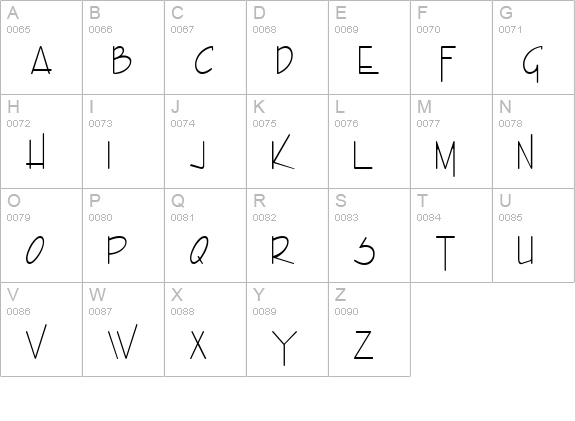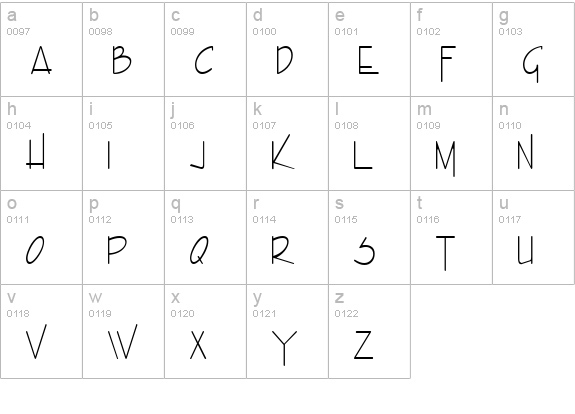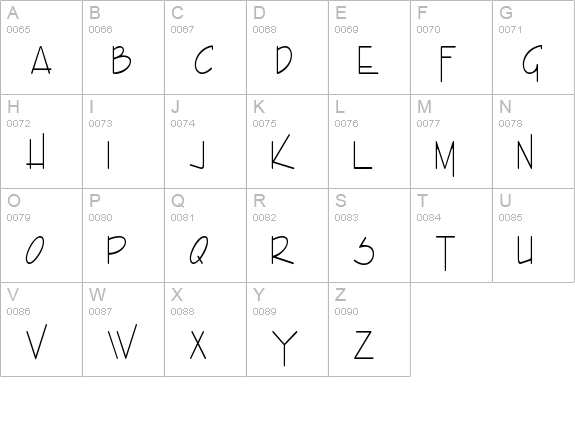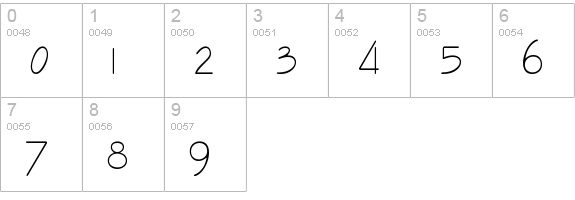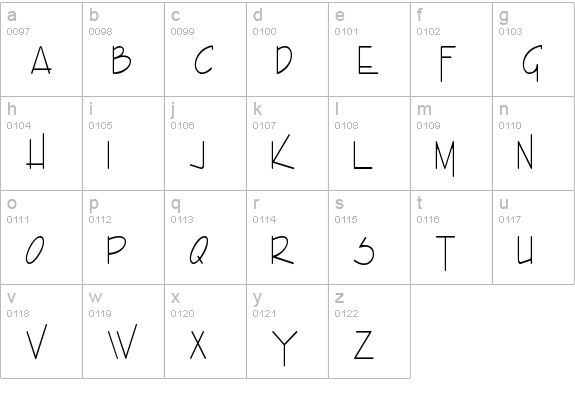
Enview Condensed Light Normal is a refined, elegant, condensed-width variant in the Enview typeface family \xE2\x80\x94 well suited to elegant body text, refined sub-headings, and luxury branding.
Enview Condensed Light Normal is a sleek and elegant font that exudes sophistication and modernity. With its clean lines and minimalist design, this typeface is perfect for adding a touch of refinement to any project. The condensed style gives it a unique and contemporary look, making it ideal for use in various design applications. This font is versatile and can be used for a wide range of projects, from branding and advertising to editorial design and web content. Its light weight adds a sense of airiness and delicacy to any text, while maintaining excellent readability. Enview Condensed Light Normal is the perfect choice for creating a sophisticated and polished aesthetic in your designs. Best of all, Enview Condensed Light Normal is available for free download at FontsMarket.com. This means you can effortlessly access and use this high-quality font in your projects without any cost. Don't miss out on the opportunity to enhance your designs with the elegant and stylish Enview Condensed Light Normal font today!